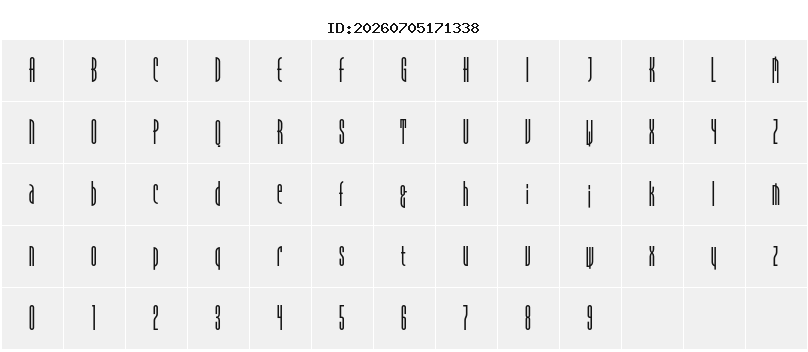
Dome Headline Preview
• Font Name: Dome Headline
About Dome Headline.otf
Dome Headline.otf is a modern, elegant sans-serif font designed for ultimate readability and visual harmony. Perfect for branding, headlines, web design, and print materials.